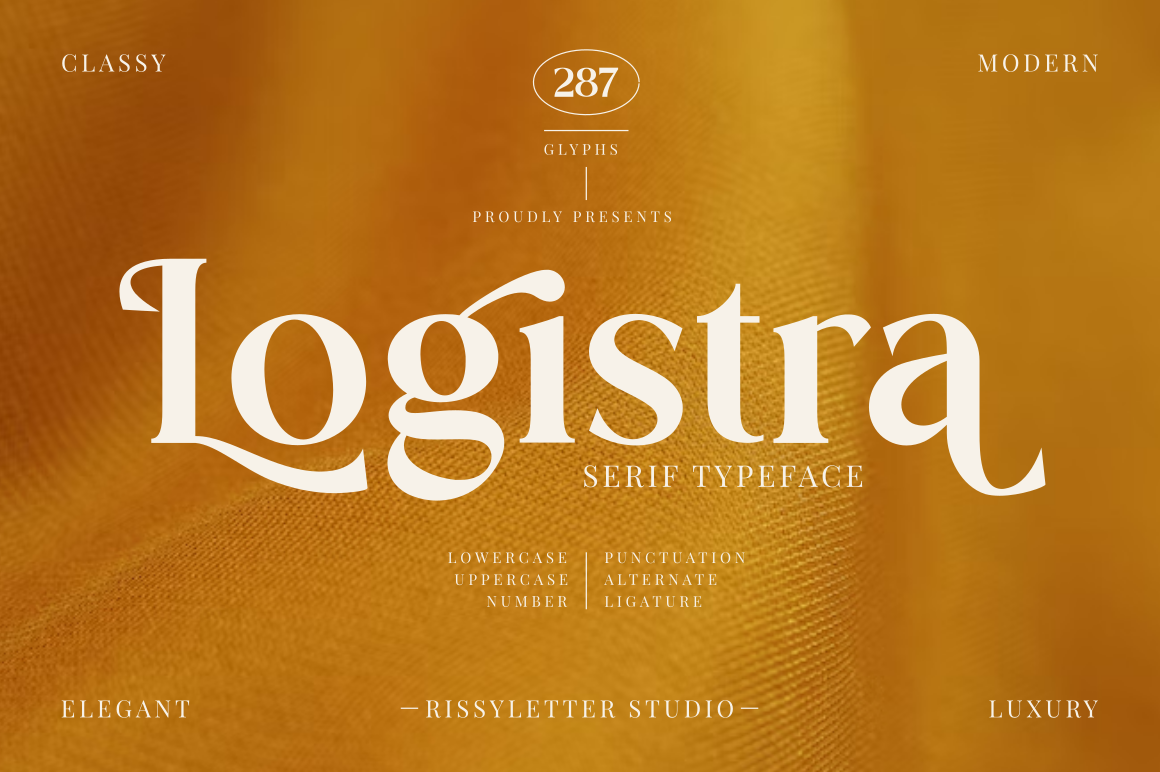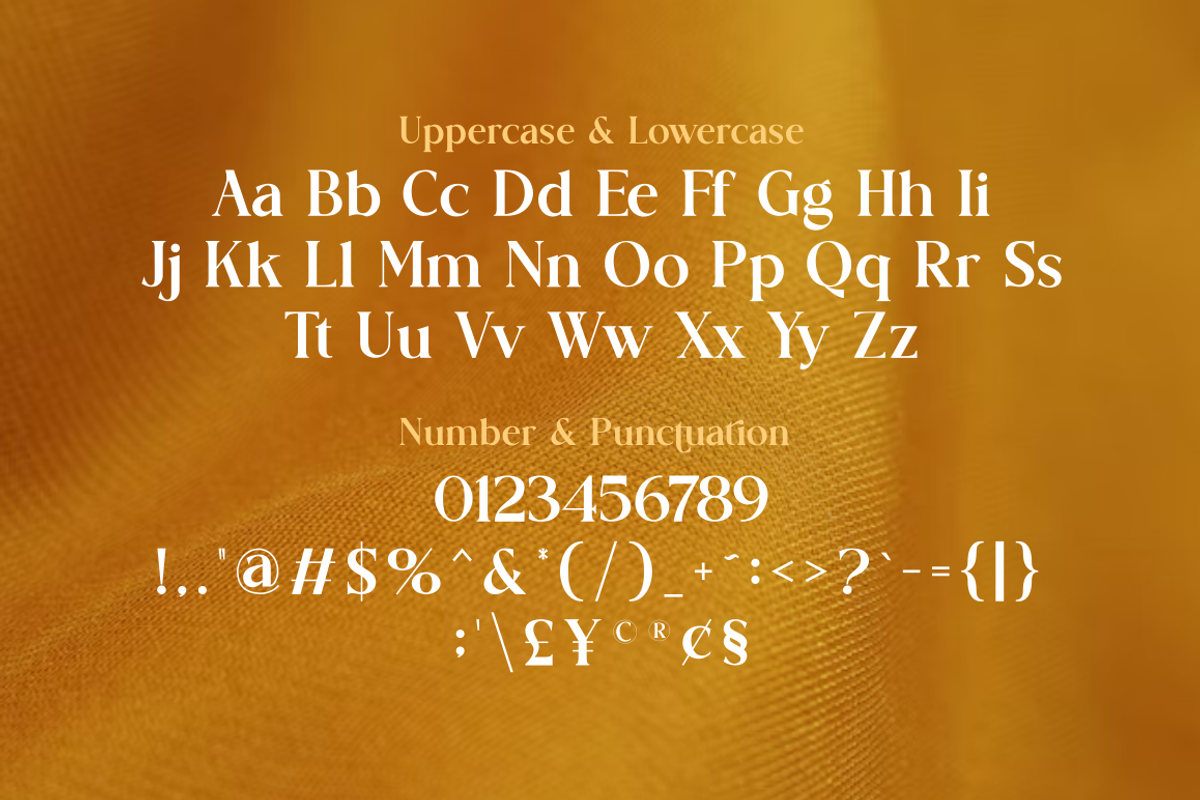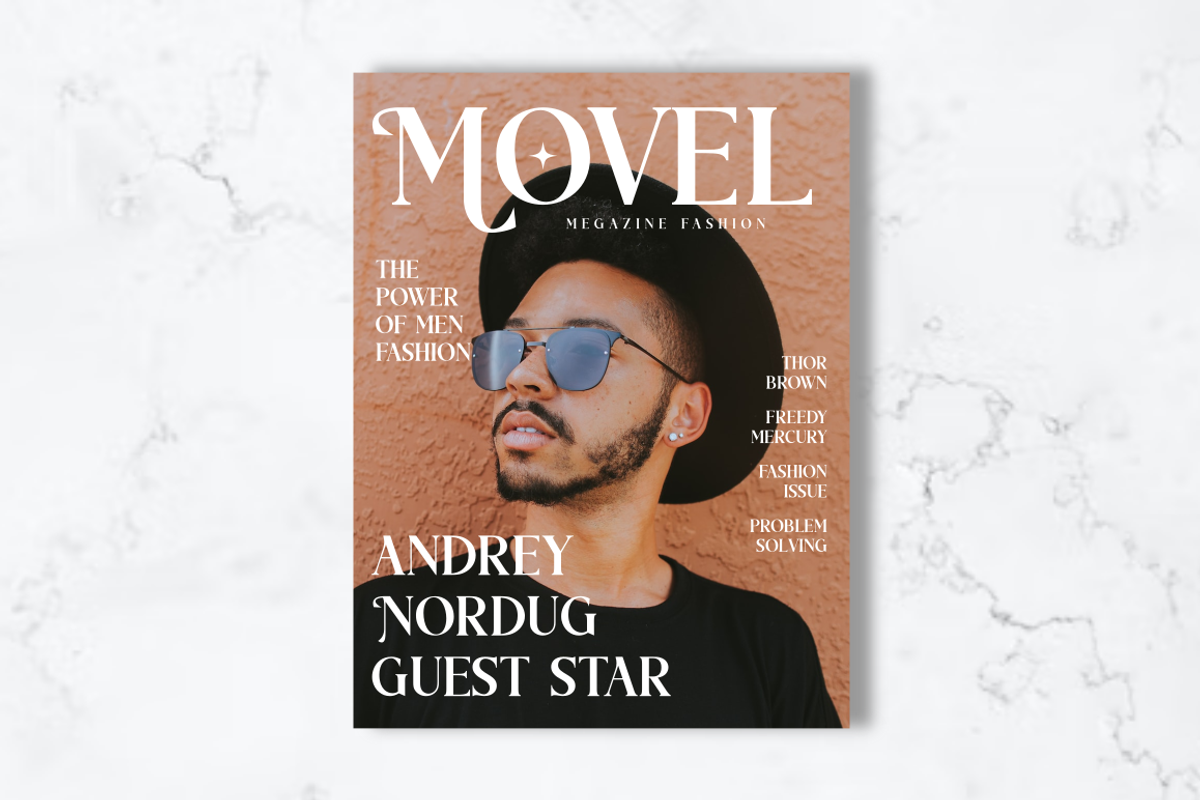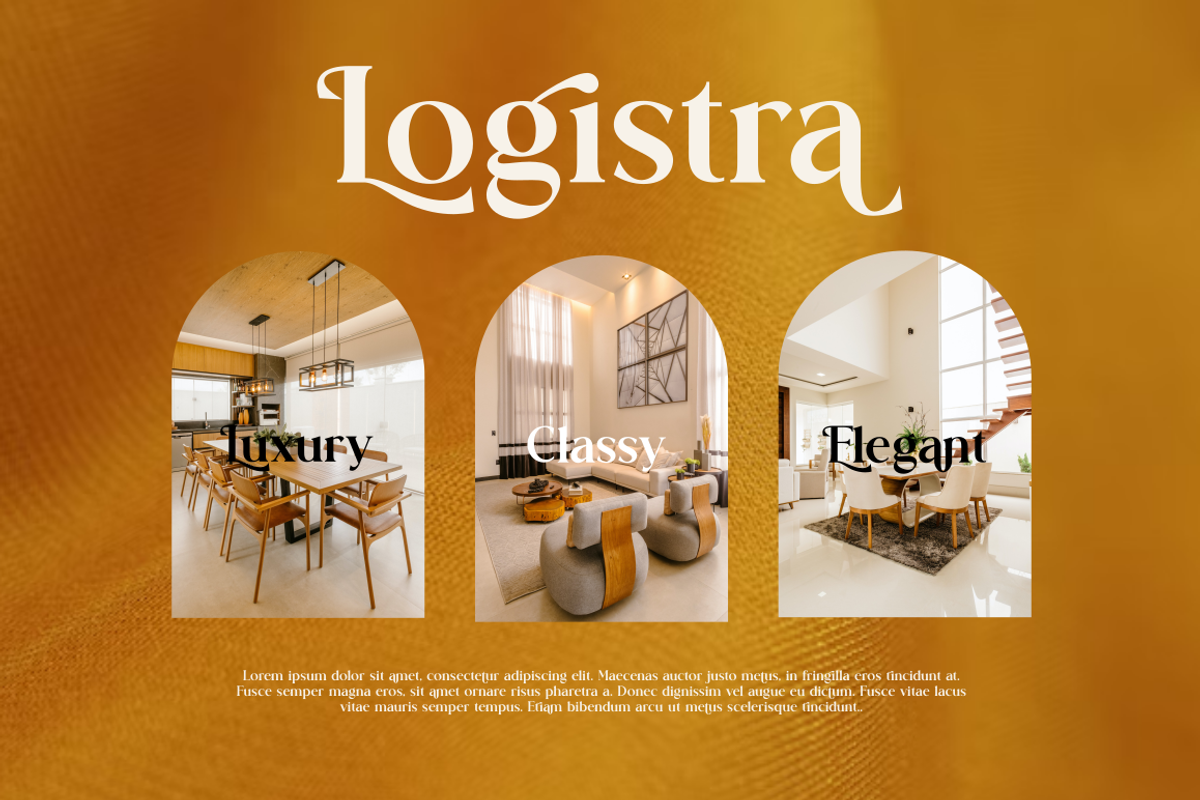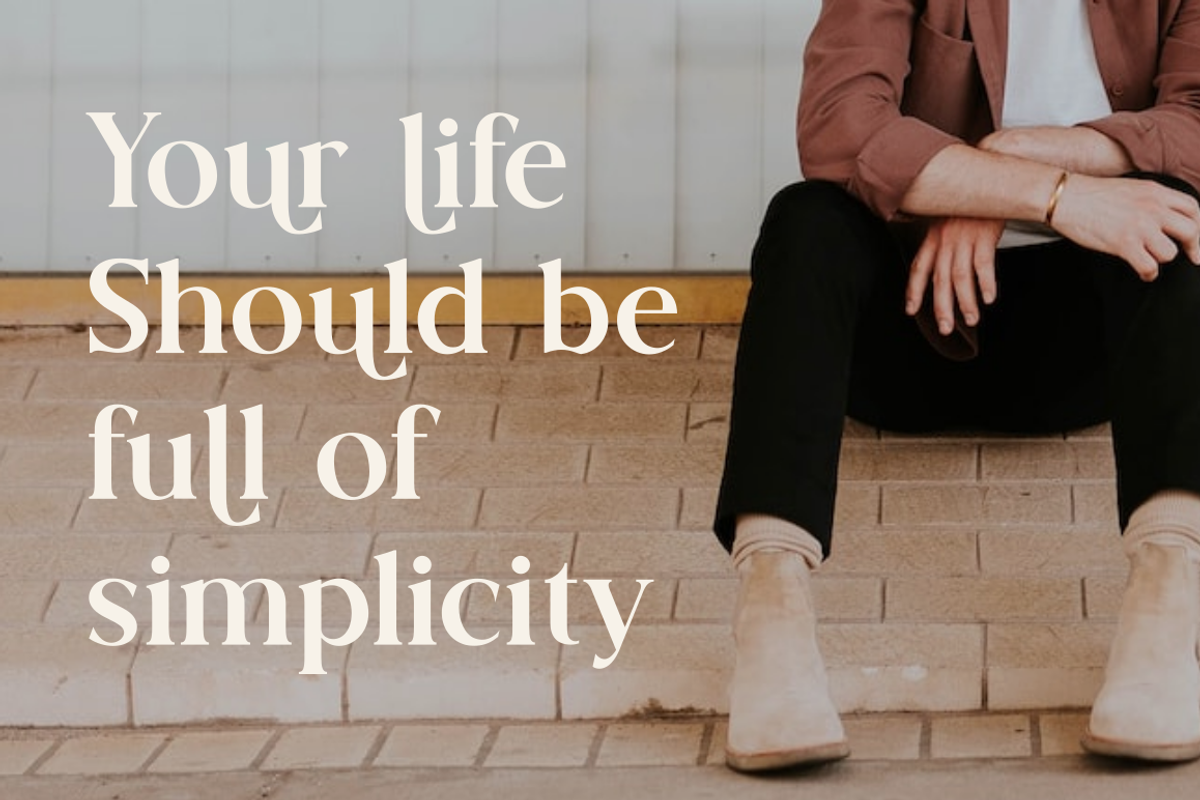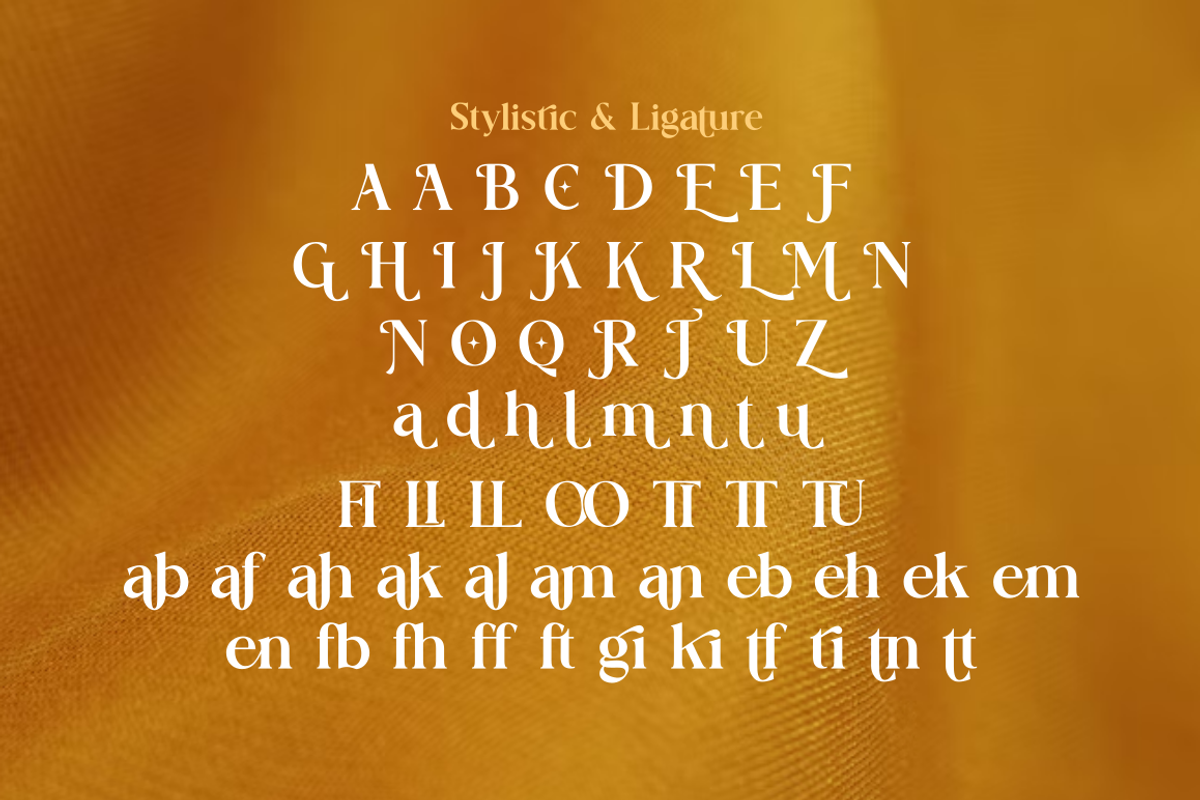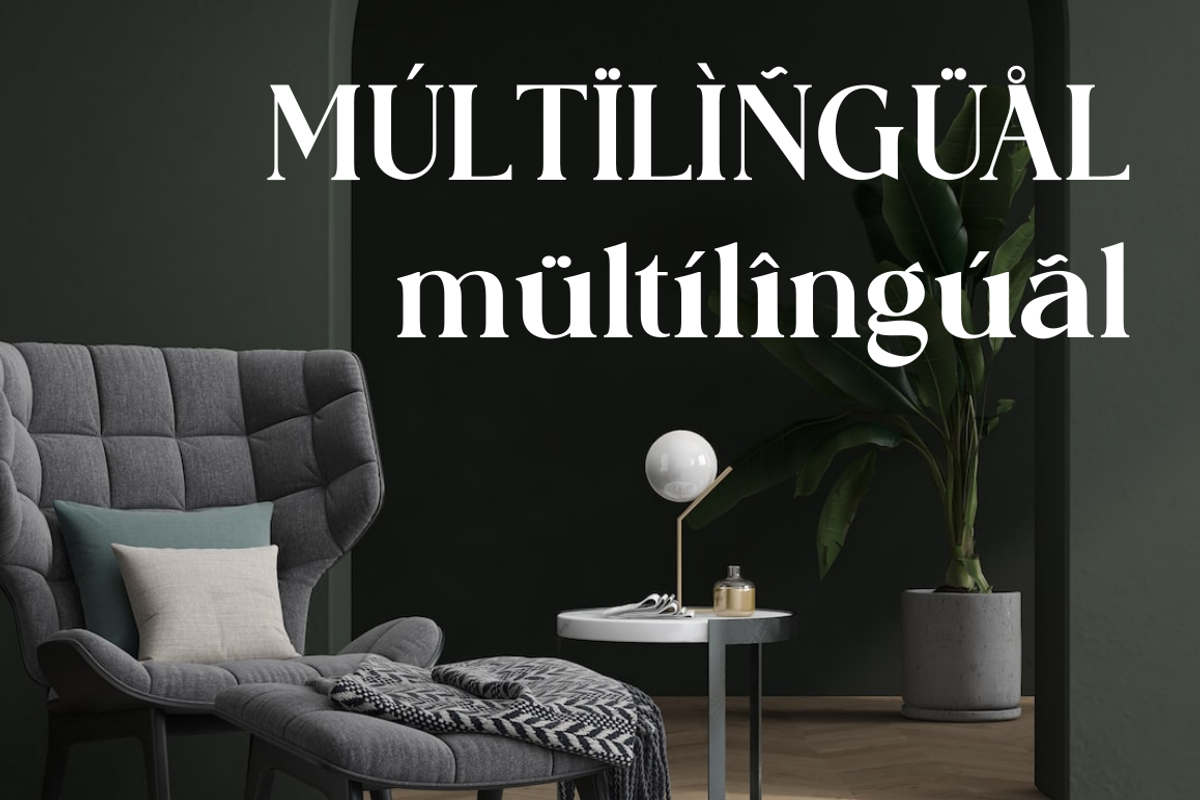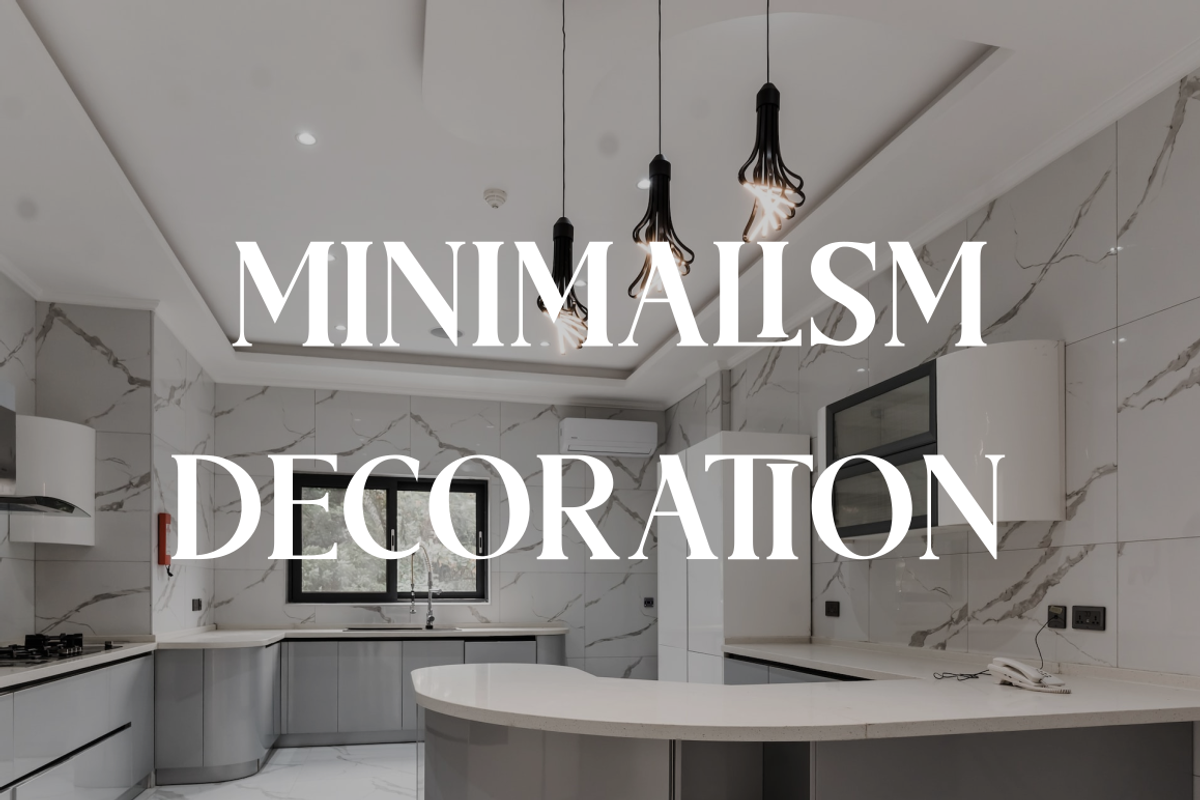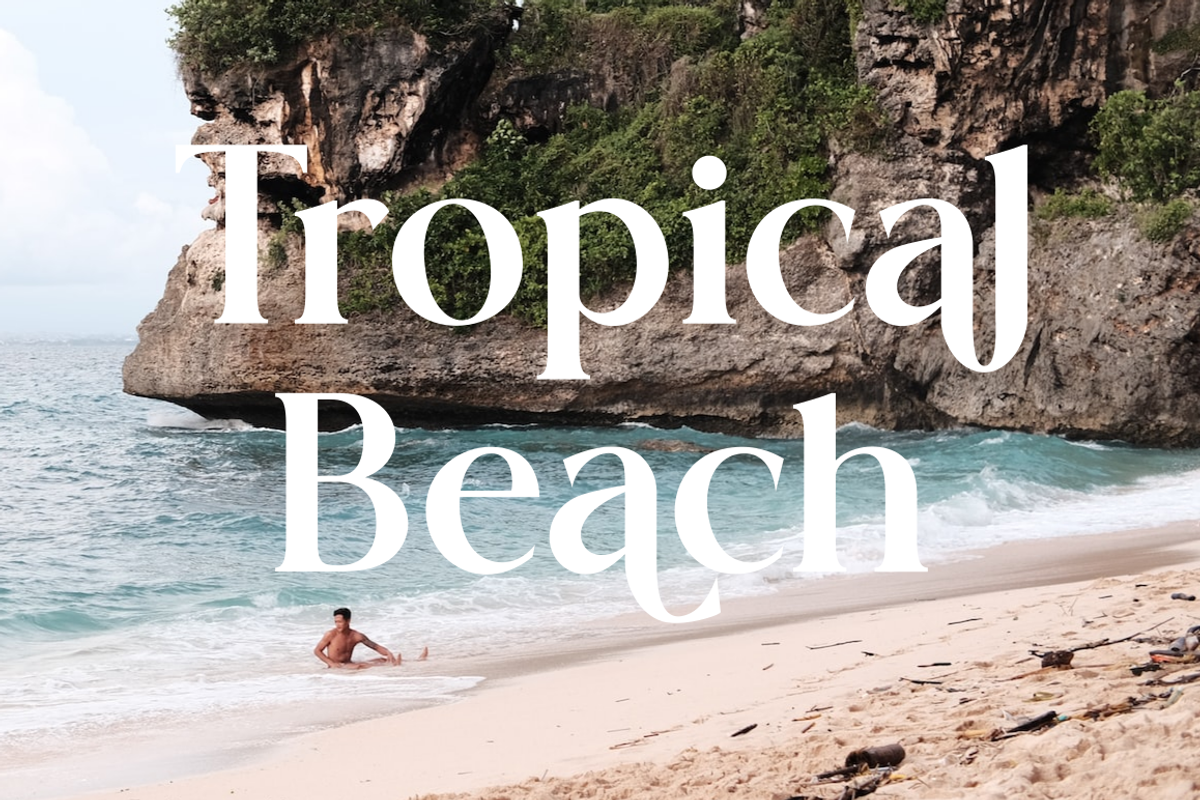
Logistra | Elegant Serif Font
Make the typography logo on your brand more elegant and professional by using the Logistra font,
Logistra font is a serif font that has thick and thin strokes that contrast in the glyphs and is made with a straight line structure and smooth curves so that the Logistra font looks professional and elegant, and there are alternative letters and ligatures to make your typography design look unique and attractive.
Logistra font is also perfect for various projects such as hand lettering, merchandise, advertisements, invitations, social media posts, video thumbnails, quotes and etc.
- More than 280 of glyphs (include Uppercase, Lowercase, Numerals & Punctuations,Ligatures and Stylistic)
- multilingual support